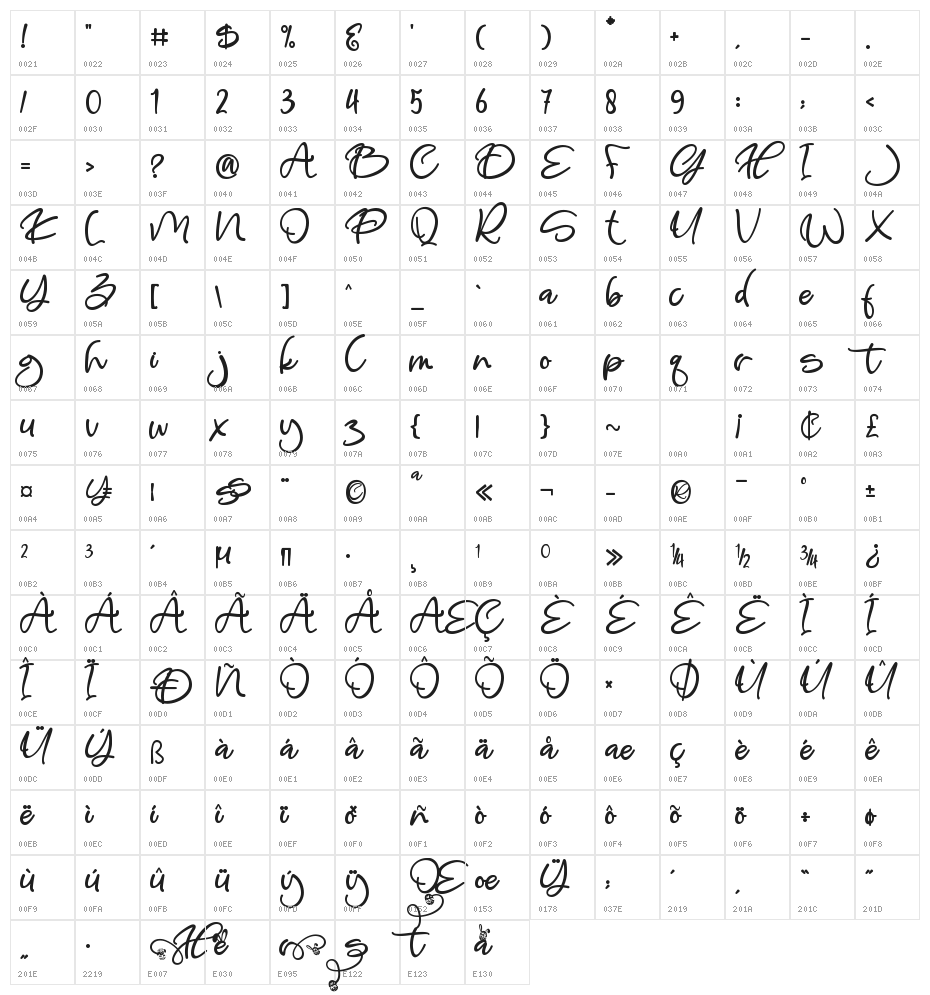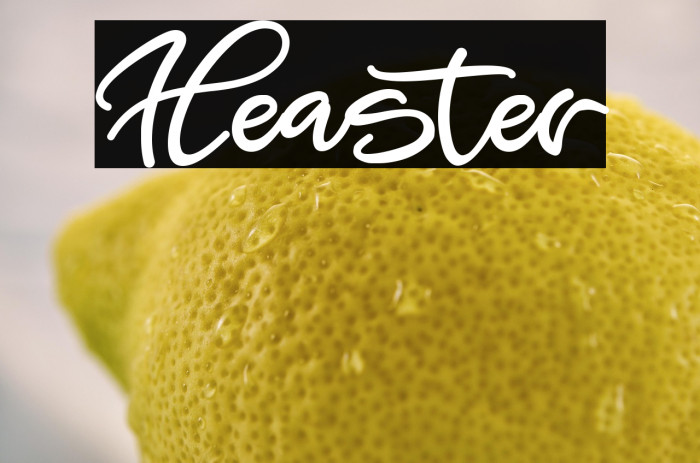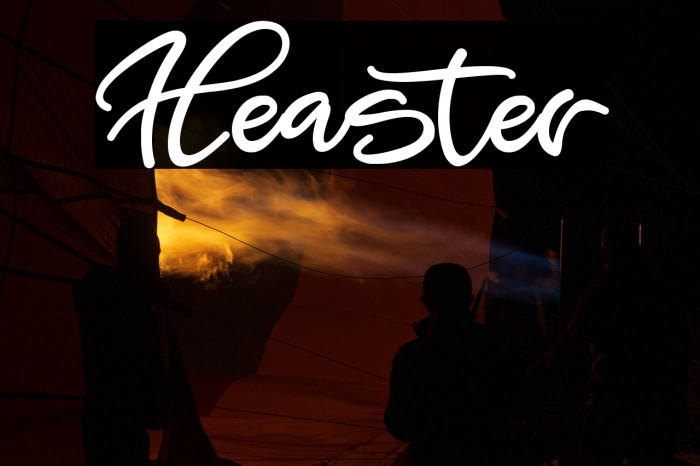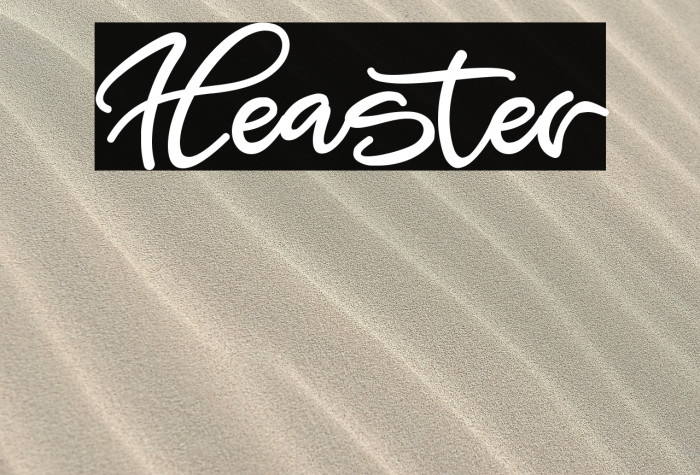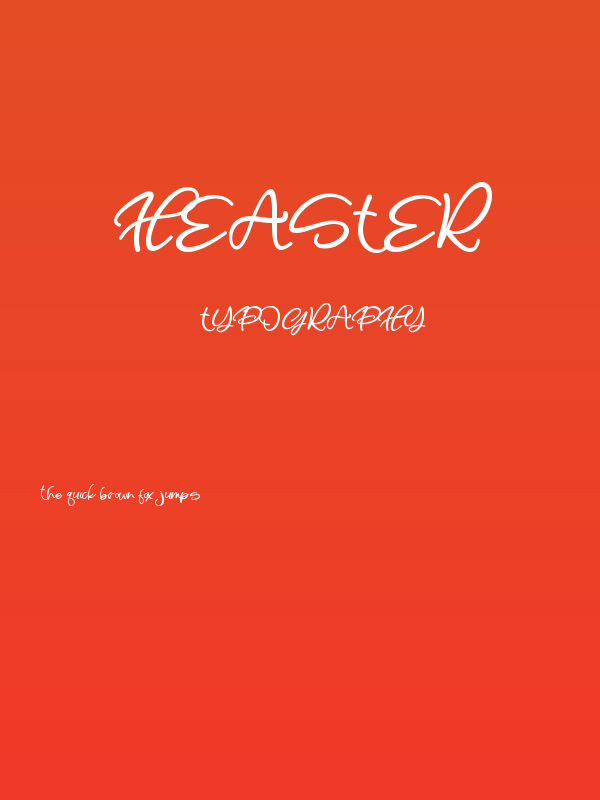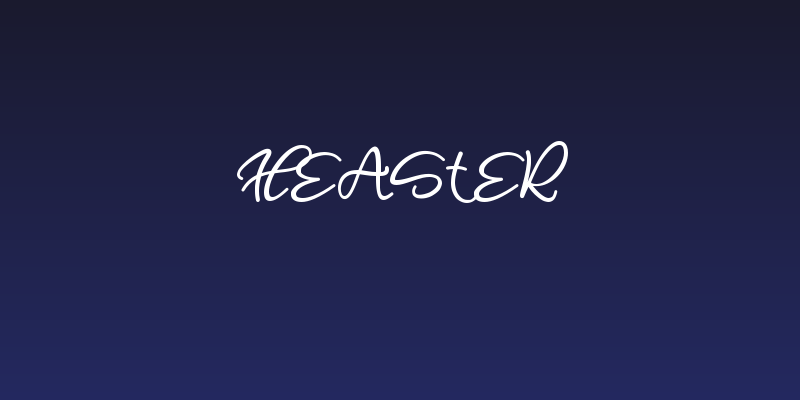
Heaster Font
Heaster Description
This font features a lively and dynamic script style, characterized by its fluid and continuous strokes that mimic natural handwriting. The uppercase letters are bold and expressive, with a playful yet elegant flair. The lowercase letters maintain a consistent flow, enhancing the overall cohesiveness of the design. Numbers and special characters are crafted with the same attention to detail, ensuring versatility across various applications. The font's energetic style is perfect for projects that require a personal touch or a sense of creativity.
| Use Case | Logos, Headlines, Creative projects |
| Proposed Projects | Ideal for greeting cards, invitations, branding, and creative projects that require a personal and artistic touch. |